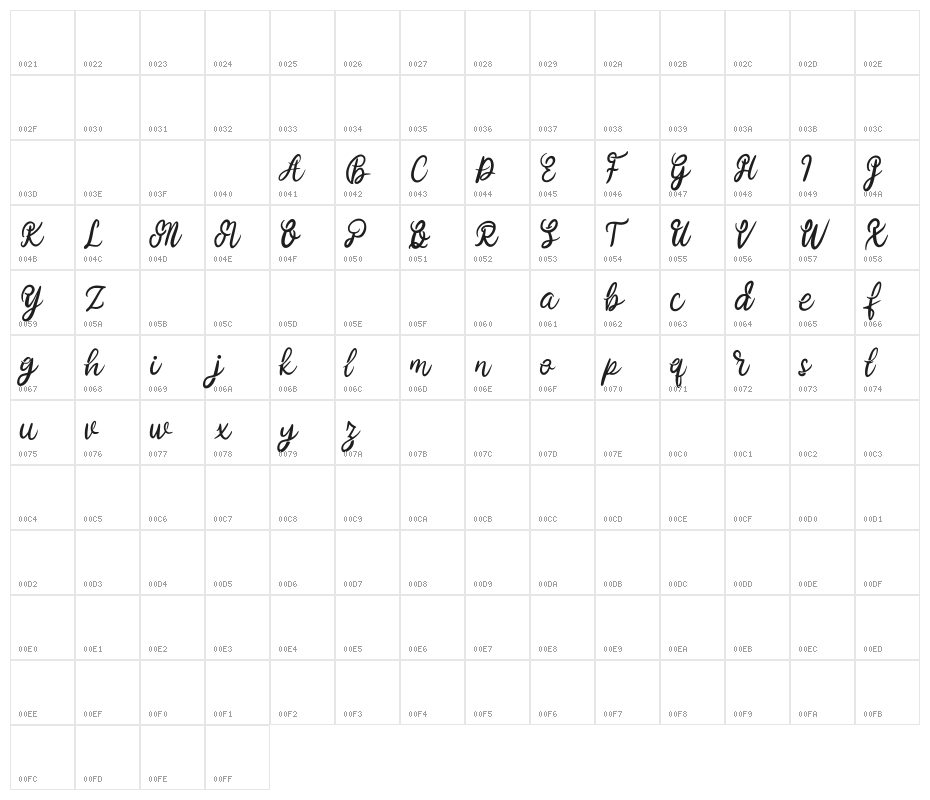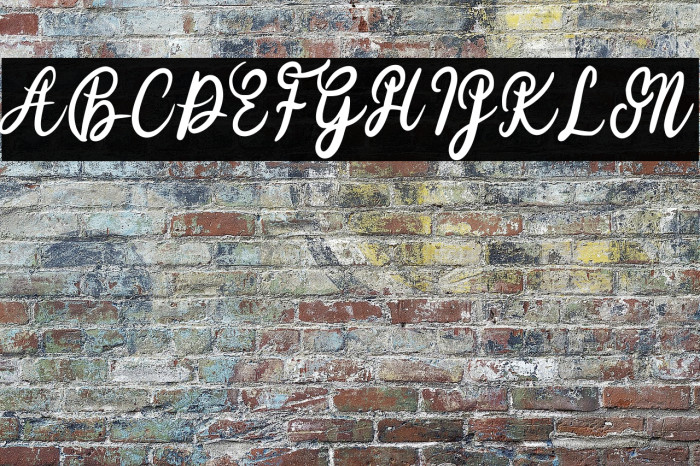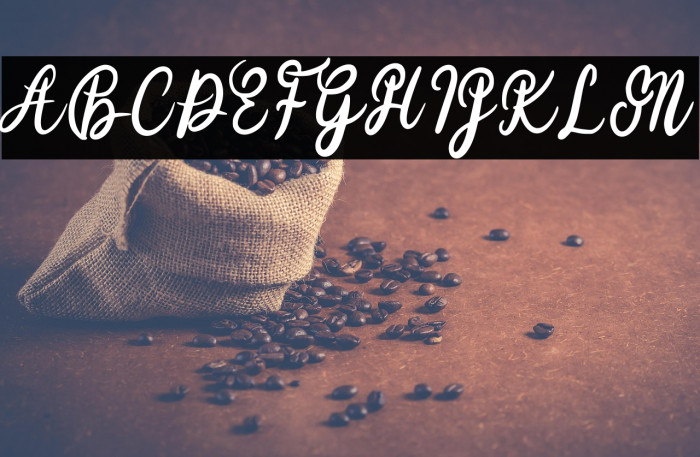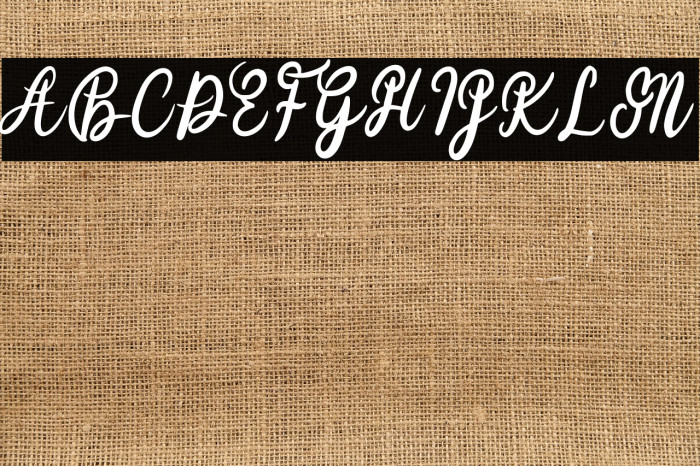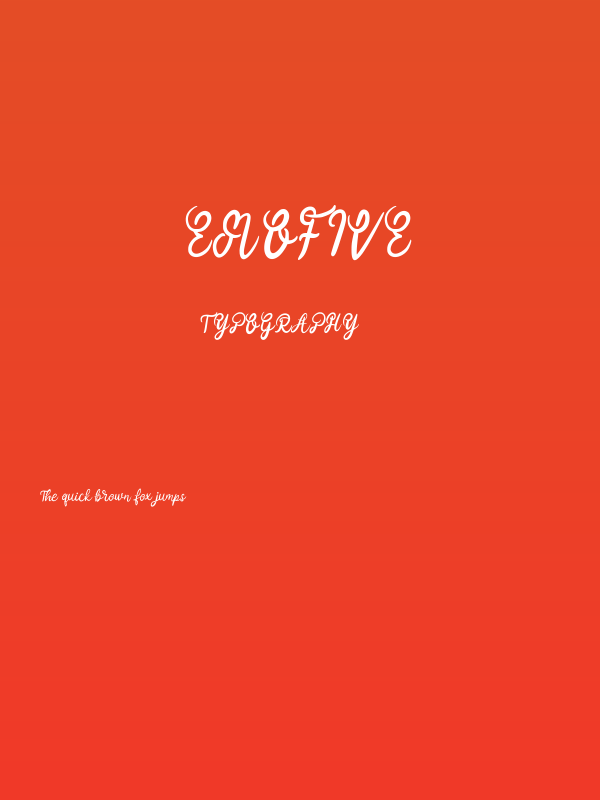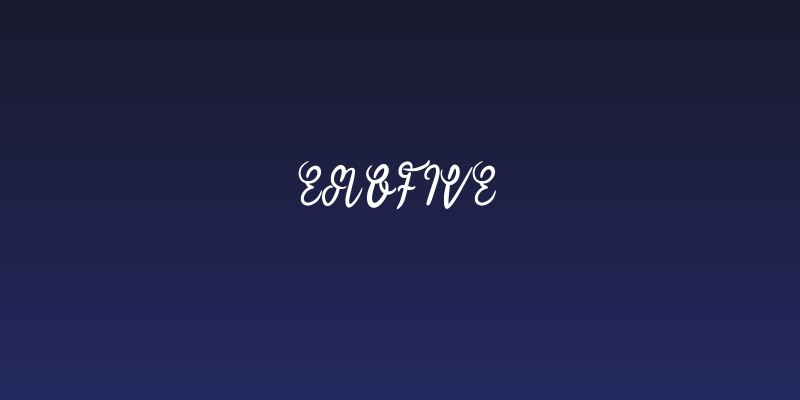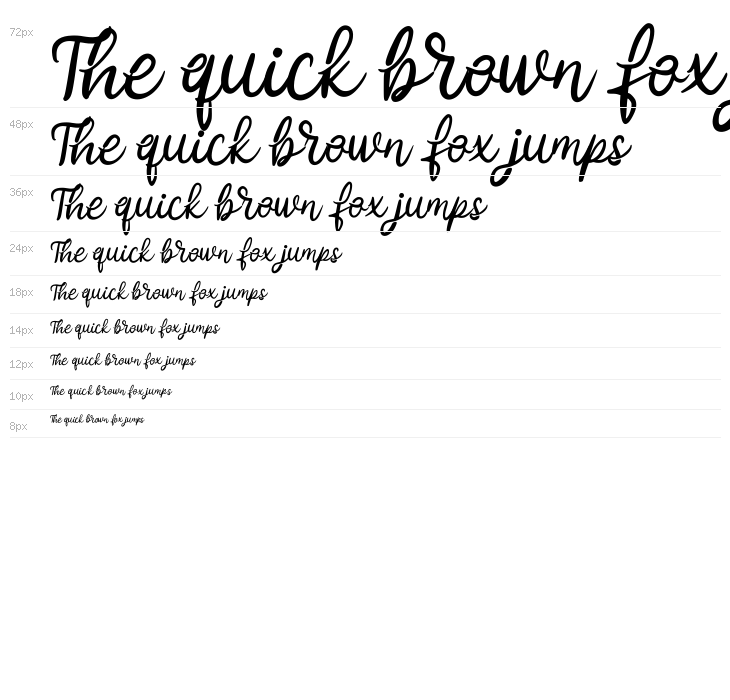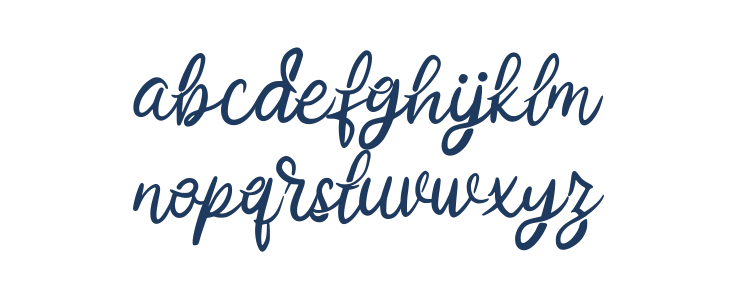
Enofive Font
Enofive Description
This font is a stylish and elegant script typeface that features fluid, connected letters with a calligraphic flair. The uppercase letters are bold and expressive, while the lowercase letters maintain a consistent flow, enhancing readability. The font's design includes smooth curves and loops, giving it a dynamic and lively appearance. It is well-suited for creative projects that require a personal touch, such as invitations, greeting cards, and branding materials. The font's overall aesthetic is both modern and timeless, making it versatile for various design applications.
| Proposed Projects | Ideal for invitations, greeting cards, branding, and creative projects requiring a personal touch. |